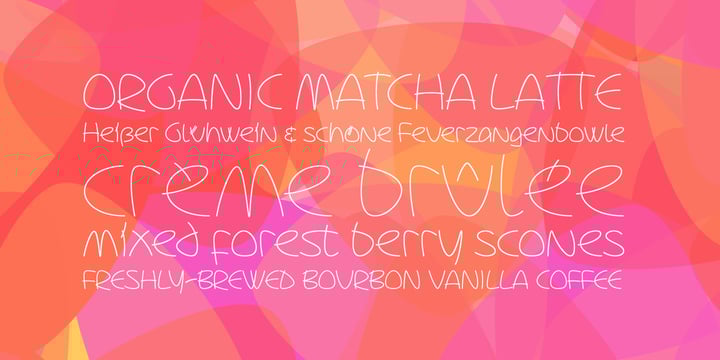
Blumenkind
Blumenkind by Catharsis Fonts
Blumenkind Font Family was designed by Christian Thalmann and published by Catharsis Fonts. Blumenkind contains 8 styles and family package options. More about this family
About Blumenkind Font Family
Blumenkind is a fresh, bright, humanist script font radiating boundless optimism and friendly enthusiasm. Its strokes are based on the rounded triangle, which lends it a dynamic bounce and a confident human touch. It shines in a wide range of display and editorial applications, but excels in particular in the context of art, creativity, food, social events, and spirituality. Blumenkind is inspired by an instance of metal-strip lettering found on the B�rgermeister Kornmesser Siedlung residential building complex in Berlin from the 1960s. The font name, being German for �flower child�, aims to capture the positive zeitgeist of that time evident in the letters. Blumenkind comes with extensive language support, tight kerning, attractive ligatures, and subtly varied alternate shapes for some of the most commonly doubled letters � and all that in three linear weights and one calligraphic weight. Furthermore, a complementary version of the font (Blumenkind Alternate) is available, in which the overlapping tittles and accent marks of the original are replaced with more traditional free-floating marks. This font is dedicated to the miracle of medical science. Thanks to Georg Seifert, Rainer Scheichelbauer, and Michael Wallner for technical aid.
Designers: Christian Thalmann
Publisher: Catharsis Fonts
Foundry: Catharsis Fonts
Design Owner: Catharsis Fonts
About Catharsis Fonts